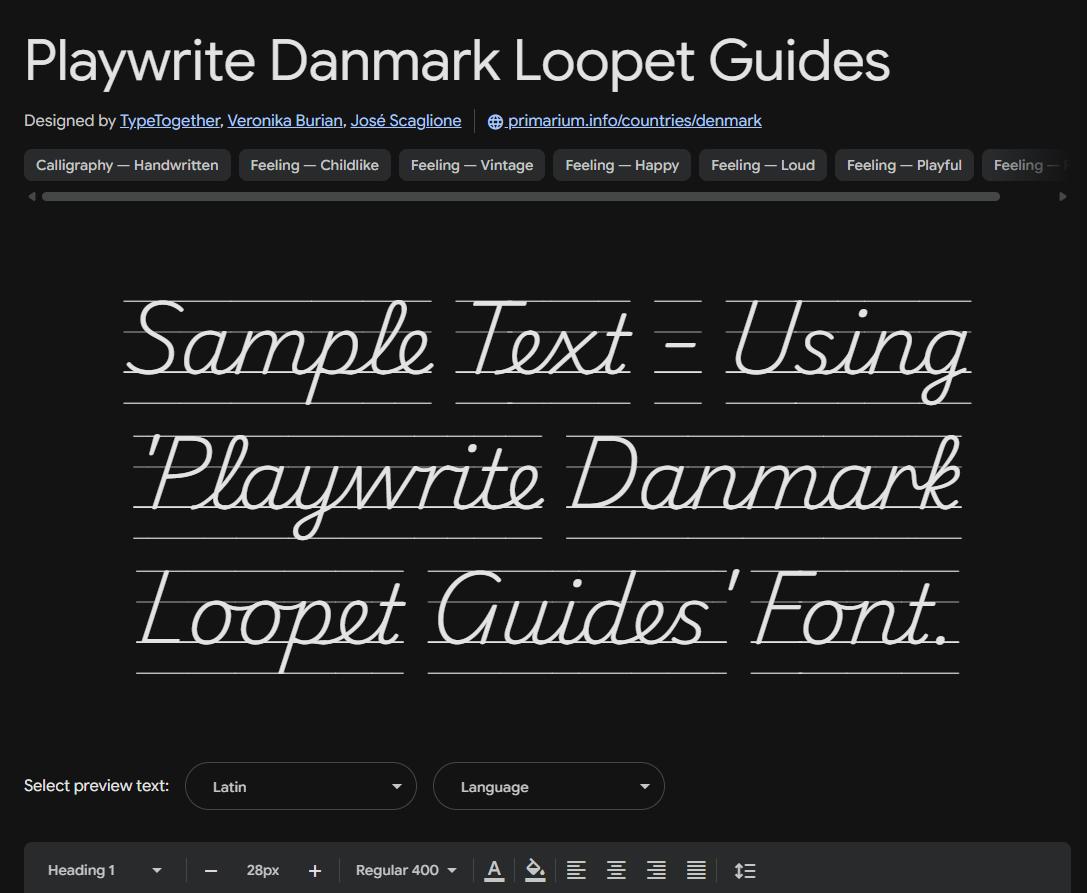
Engineered by TypeTogether founders Veronika Burian and José Scaglione, Playwrite Danmark Loopet Guides is a specialized single-style typeface that synthesizes pedagogical requirements with advanced digital orthography. This unique font family facilitates cursive acquisition by embedding precise vertical metrics-specifically baseline, mean-line, and cap-height guides-directly into the character architecture, ensuring that each glyph conforms to the rhythmic constraints of the Danish handwriting tradition. By formalizing the fluid, looped connectivity of instructional scripts within a robust typographic framework, the designers have created a tool that leverages consistent stroke modulation and optimized kerning to transform traditional penmanship into a scalable, semantically rich digital asset for educational environments.
The Playwrite Danmark Loopet Guides font family serves as a sophisticated variable typeface that synthesizes the rigid skeletal structures of Danish pedagogical cursive with a vibrant, calligraphy-inspired manual flow. By utilizing looped ascenders and a rugged, unrefined stroke modulation, this handwritten system captures a vintage heritage aesthetic while projecting a loud and playful energy synonymous with youthful spontaneity. The typeface's generous x-height and irregular glyph construction create a happy, childlike atmosphere, offering a unique perspective on educational typography where technical precision meets the tactile, expressive charm of early-stage scriptorial development.
Due to its specialized pedagogical architecture, Playwrite Danmark Loopet Guides is fundamentally unsuitable for high-density data environments, such as financial ledger reporting or pharmaceutical labeling, where rapid legibility and minimal visual noise are critical for safety and accuracy. The typeface, engineered by TypeTogether's Veronika Burian and José Scaglione to adhere to Danish primary educational standards, incorporates fixed horizontal ruling lines as integrated glyph components; while these guides facilitate motor skill development in early learners, they function as non-semantic artifacts in professional contexts, severely disrupting the gestalt principles of word-shape recognition and increasing cognitive load. Furthermore, the complex cursive skeletons and the additional stroke density of the integrated guides pose significant technical challenges for UI/UX applications, as they risk poor rasterization on low-resolution displays and fail to meet the high contrast-to-background ratios required for Web Content Accessibility Guidelines (WCAG) compliance in digital interfaces.
You can activate the baseline and midline guides by enabling specific Stylistic Sets or OpenType alternates within your application's character panel. By utilizing the ss01 feature tag, the font maps auxiliary glyphs to the EM square, providing a fixed reference for ascender height and descender depth.
Standard font formats generally apply a single color to the entire character, meaning guides and letters share the same hex value. To achieve multi-color output, designers must layer duplicate text frames using COLRv1 table extensions or manual layer stacking to isolate stroke-specific color palettes.
Yes, the font fully supports the Danish alphabet, including specific diacritics and ligatures required for regional orthography. Extensive character mapping confirms full coverage of the Latin-1 Supplement block, ensuring these unique graphemes maintain consistent x-height with the primary glyph set.
For optimal legibility of the guide lines in printed materials, a minimum size of 24 points is recommended to prevent the thin strokes from disappearing. High-resolution rasterization analysis indicates that at 300 DPI, stroke widths below 0.2 points risk aliasing errors during the offset printing process.
The font features sophisticated cursive connections that use contextual alternates to link letters seamlessly in real-time. The calt feature employs look-up tables to dynamically swap glyphs based on preceding character outstrokes, ensuring fluid script continuity.
The vector-based nature of the typeface makes it ideal for large-format classroom posters, maintaining sharp edges at any scale. Utilizing Bezier curve mathematics, the outlines remain mathematically precise, preventing pixelation even when scaled to 400% of the standard display size.
The Loopet version features distinctive loops on ascenders and descenders, providing a more decorative and traditional cursive aesthetic compared to the simplified standard version. Comparative glyph analysis shows a 15% increase in path complexity due to the additional nodes required to define the rounded loop geometry.
This font is well-suited for digital tracing apps, as the included guides provide clear paths for students to follow during writing exercises. Implementing SVG font formats allows developers to extract precise path data, enabling real-time stroke-order validation via coordinate-based hit testing.